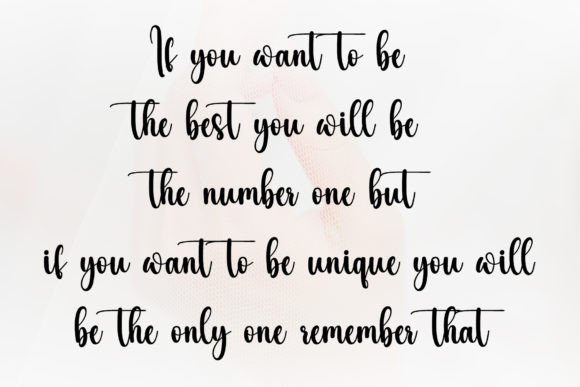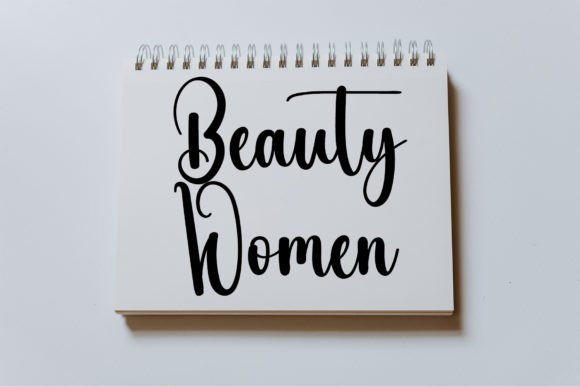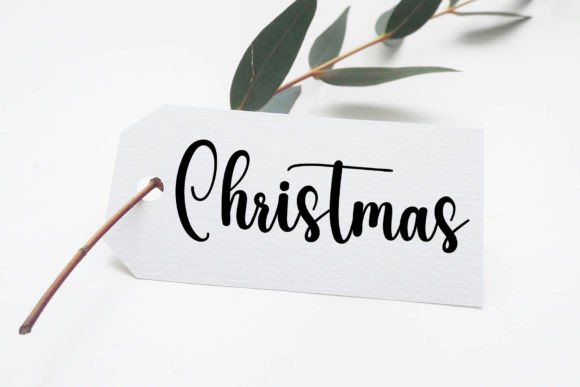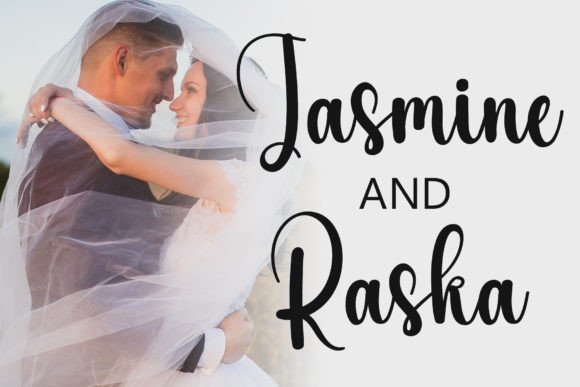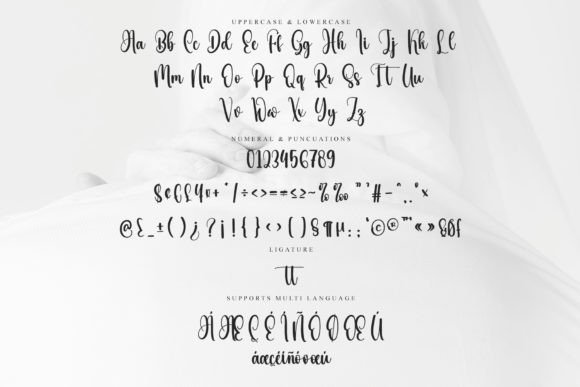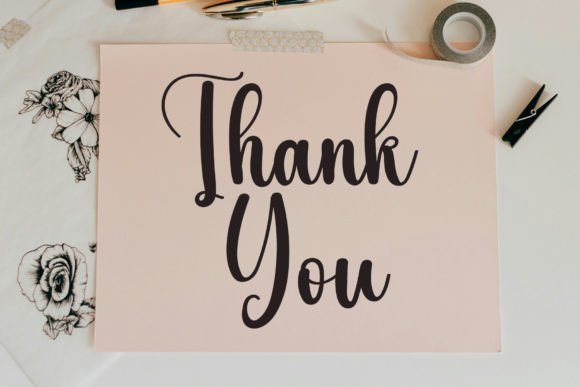
The Magical World of Furcate Font: Elevate Your Designs with Elegance
I’ll never forget the time I was working on a DIY project, pouring my heart and soul into creating the perfect Instagram post. I had the concept, the graphics, and the message, but something was missing – the right font. I scrolled through countless options, but none seemed to capture the elegance I was looking for. That’s when I stumbled upon Furcate, a magical handwritten font that transformed my design into a true piece of art!
A Personal Review of Furcate Font
As a designer, I’m always on the lookout for fonts that can add a touch of sophistication to my projects. Furcate has become a go-to in my font library, and here’s why:
- ✨ Elegant and refined: Furcate adds a level of sophistication to any design.
- ✅ Highly versatile: Perfect for Instagram posts, calligraphy scripts, and DIY projects.
- 💫 Unique character: The font’s subtle quirks make it stand out from more generic fonts.
The Not-So-Perfect Side of Furcate
No font is perfect, and Furcate has a few minor quirks:
- 🤔 Limited use in very formal or corporate designs: Furcate’s elegant feel might not be suitable for more traditional or formal projects.
- ⚠️ Some characters may require manual kerning: As with any font, you might need to adjust the spacing between certain characters for optimal results.
The Story Behind Furcate Font
Furcate was created by a talented designer who wanted to craft a font that would bring a touch of magic to creative projects. Inspired by the beauty of handwritten calligraphy, Furcate was carefully designed to be both elegant and versatile.
| Font Name | Furcate Font |
| Author | YanStudio |
| What makes Furcate font unique? | Furcate’s unique character comes from its elegant and refined design, making it perfect for creative projects. |
| Is Furcate suitable for formal designs? | While Furcate is elegant, it may not be suitable for very formal or corporate designs. |
Furcate font is a versatile and elegant addition to any design project. With its unique character and range of OpenType features, it’s perfect for designers, crafters, and creative hobbyists looking to add a touch of sophistication to their work.